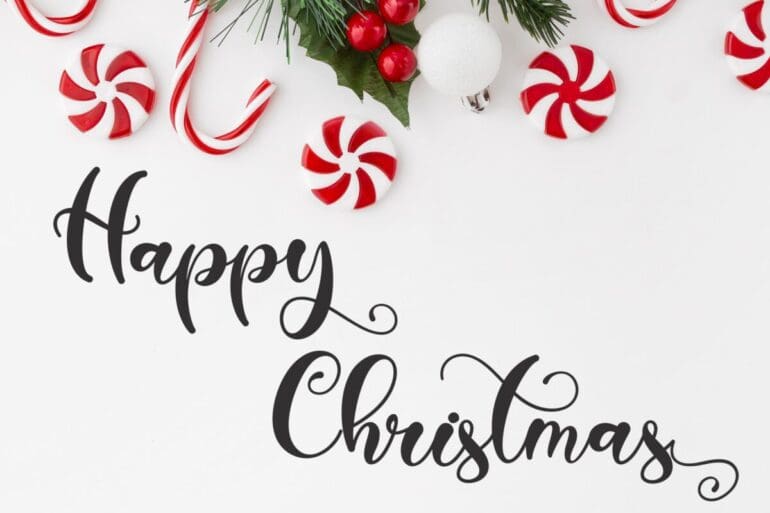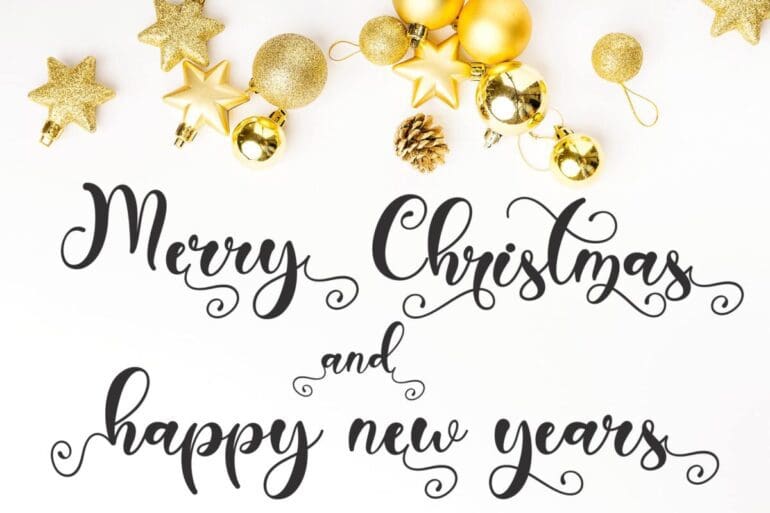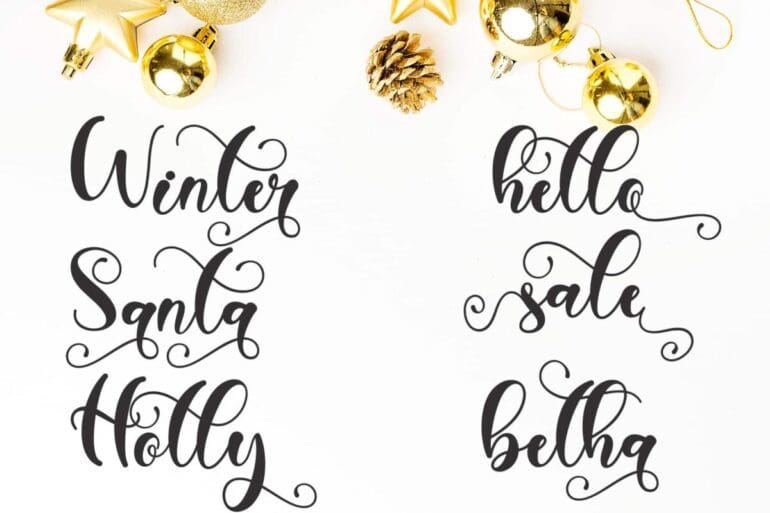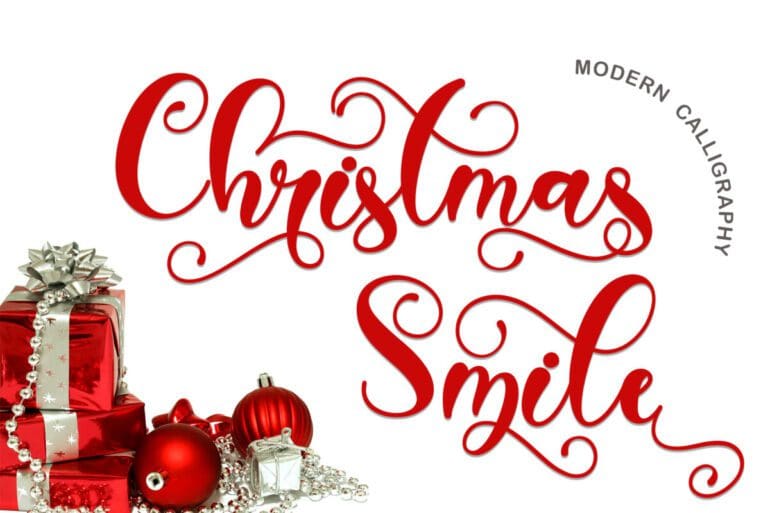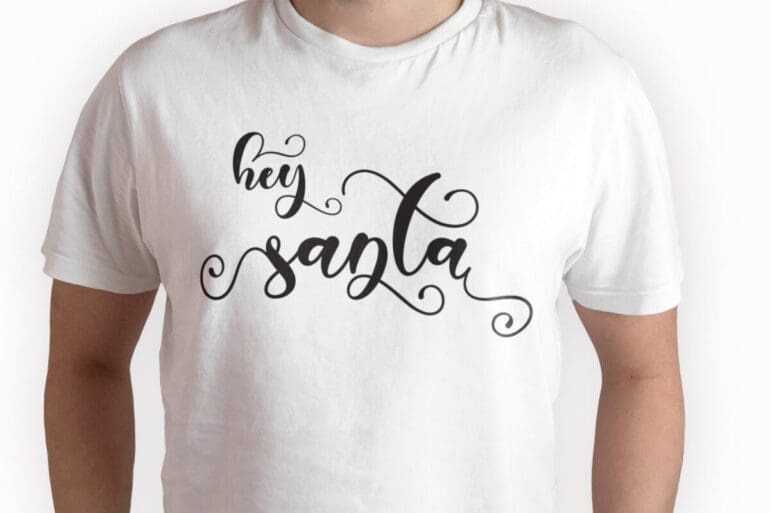
Christmas Smile Font
Christmas Smile is a beautiful calligraphy font and is perfect for beautifying your Christmas moments. This font is equipped with main letters (uppercase and lowercase), swash and titling, alternates, ligatures, numerals and punctuations, as well as multilingual support. Letter decoration is very easy to apply because it has been specially designed. In addition, it is also equipped with a user guide in the preview. “Christmas Smile can also be used for weddings, birthdays, valentines, promotions, thanksgiving, and more.